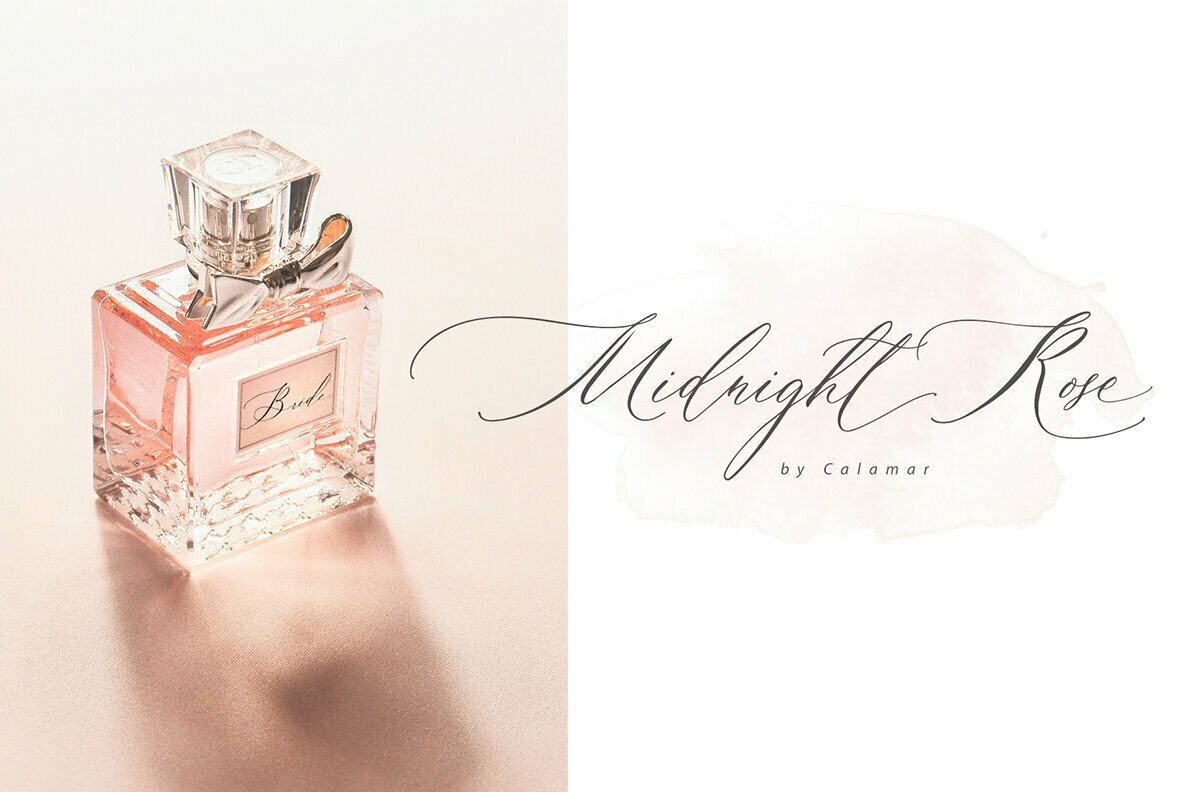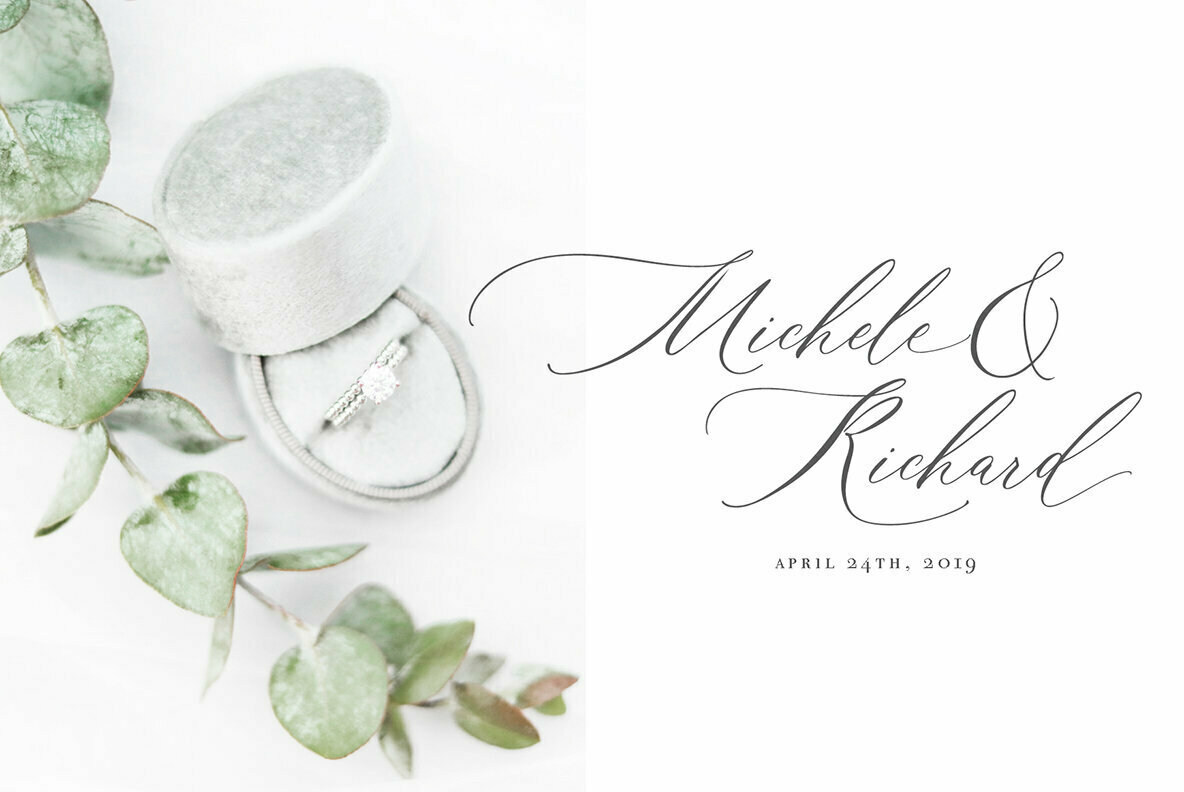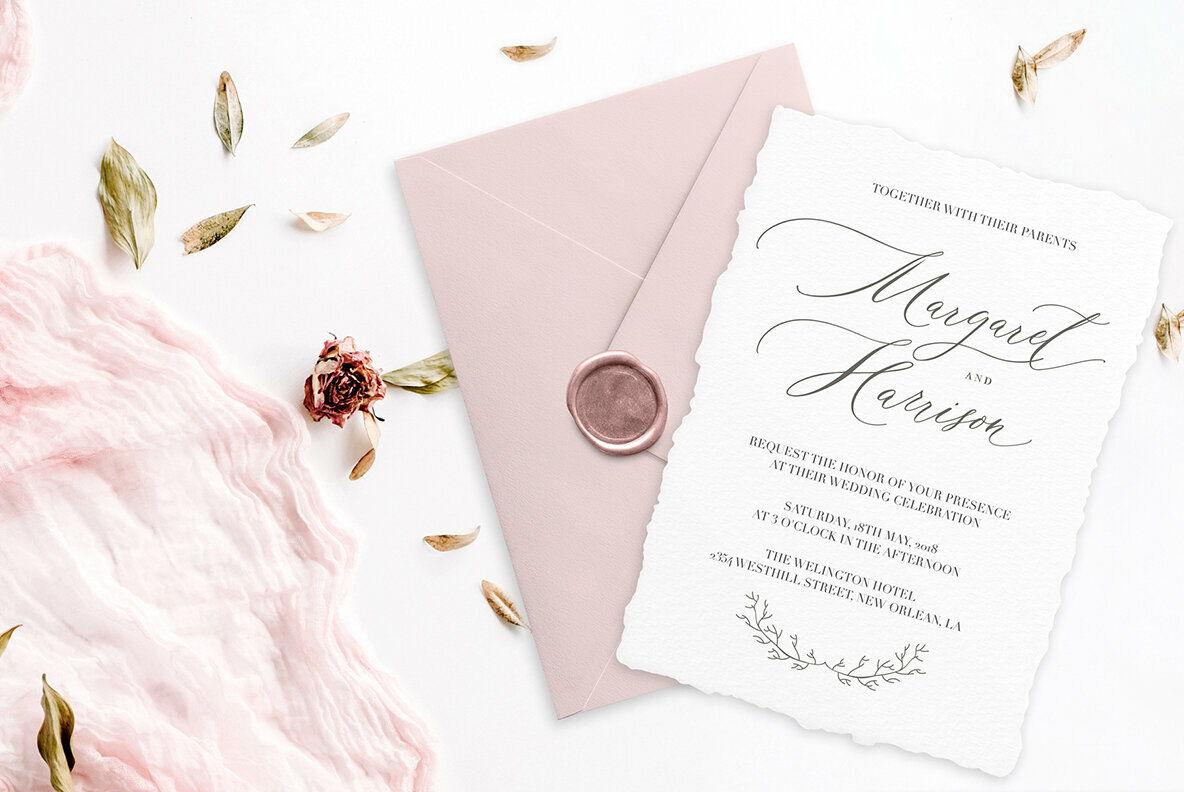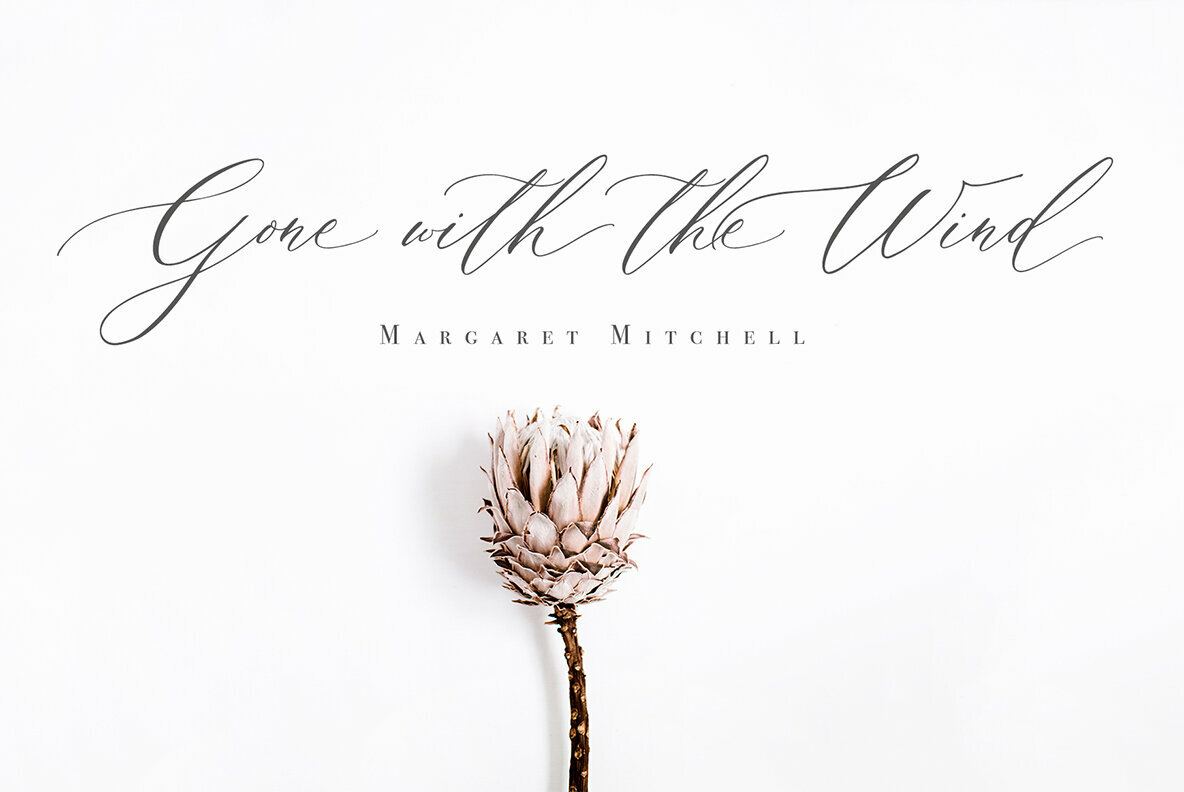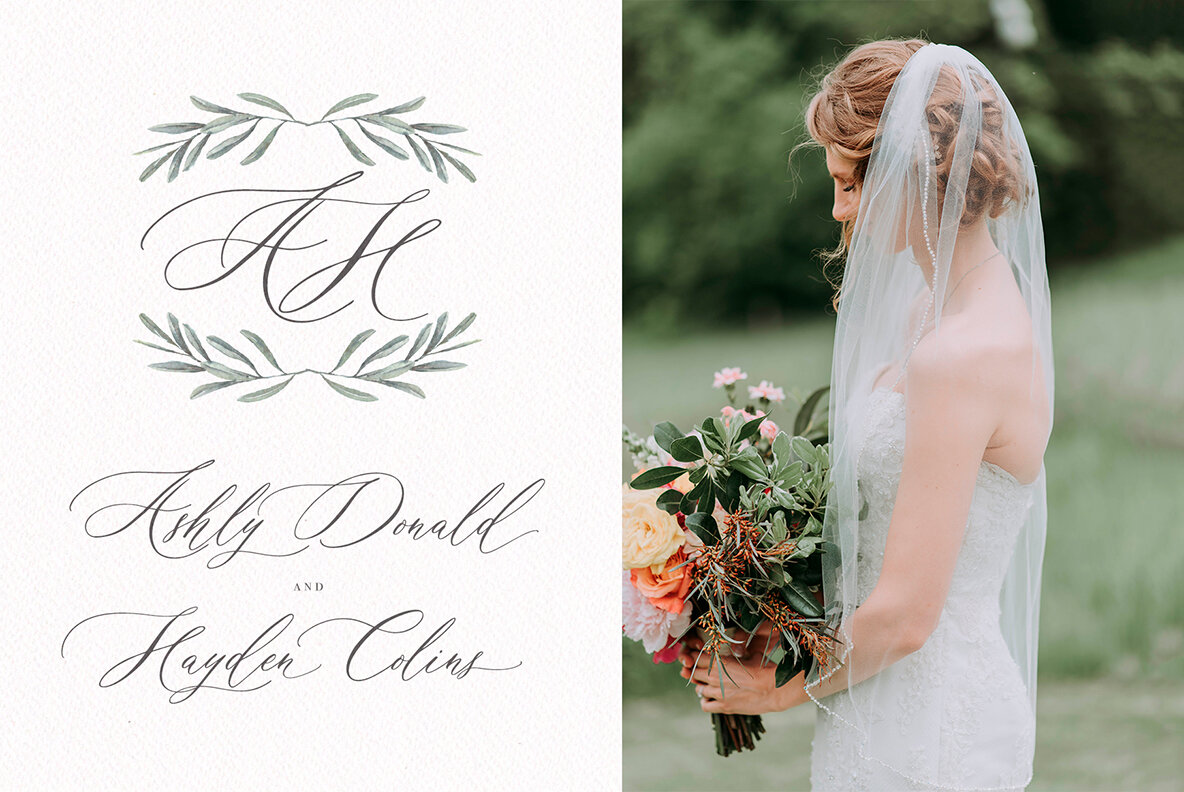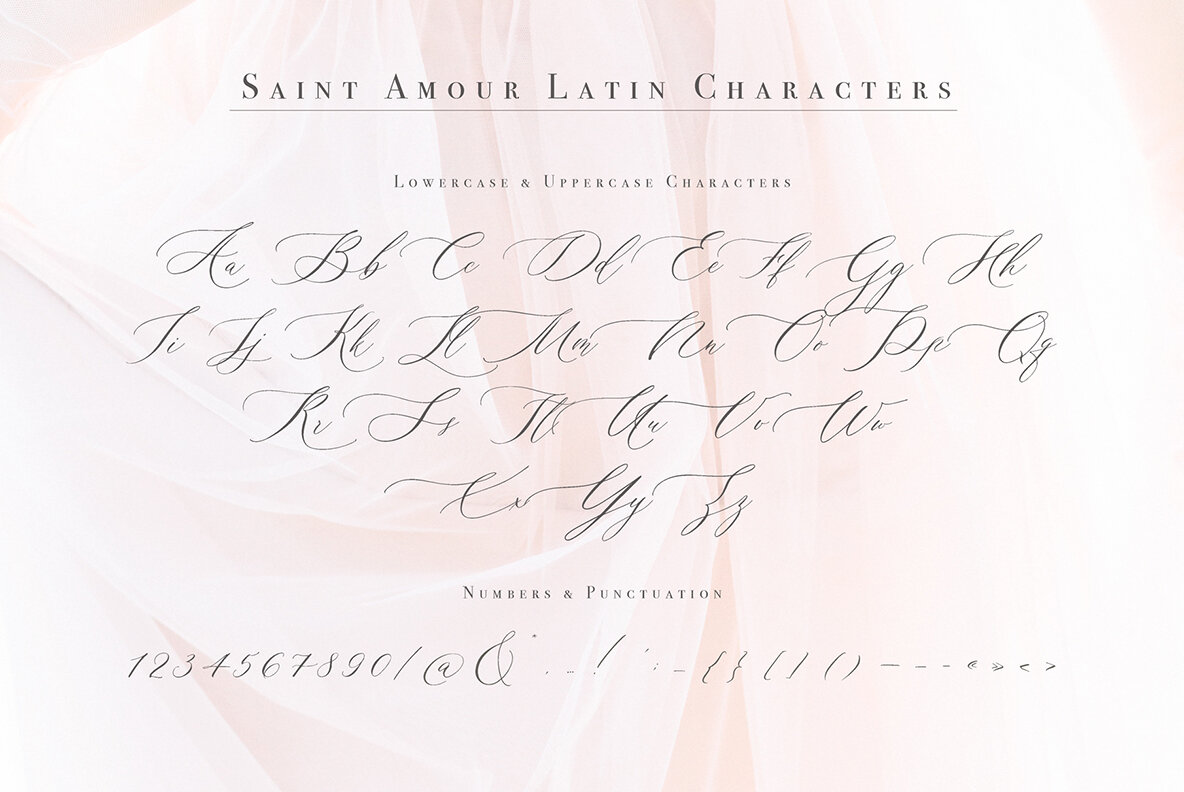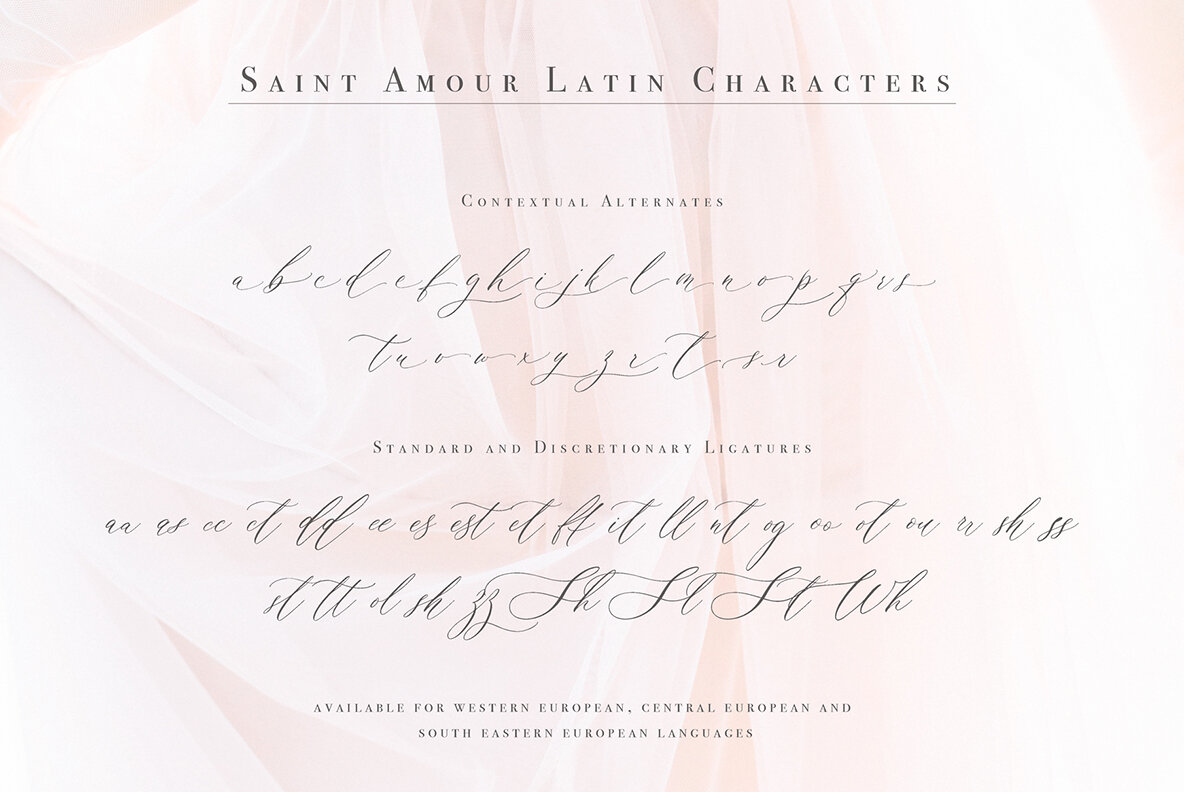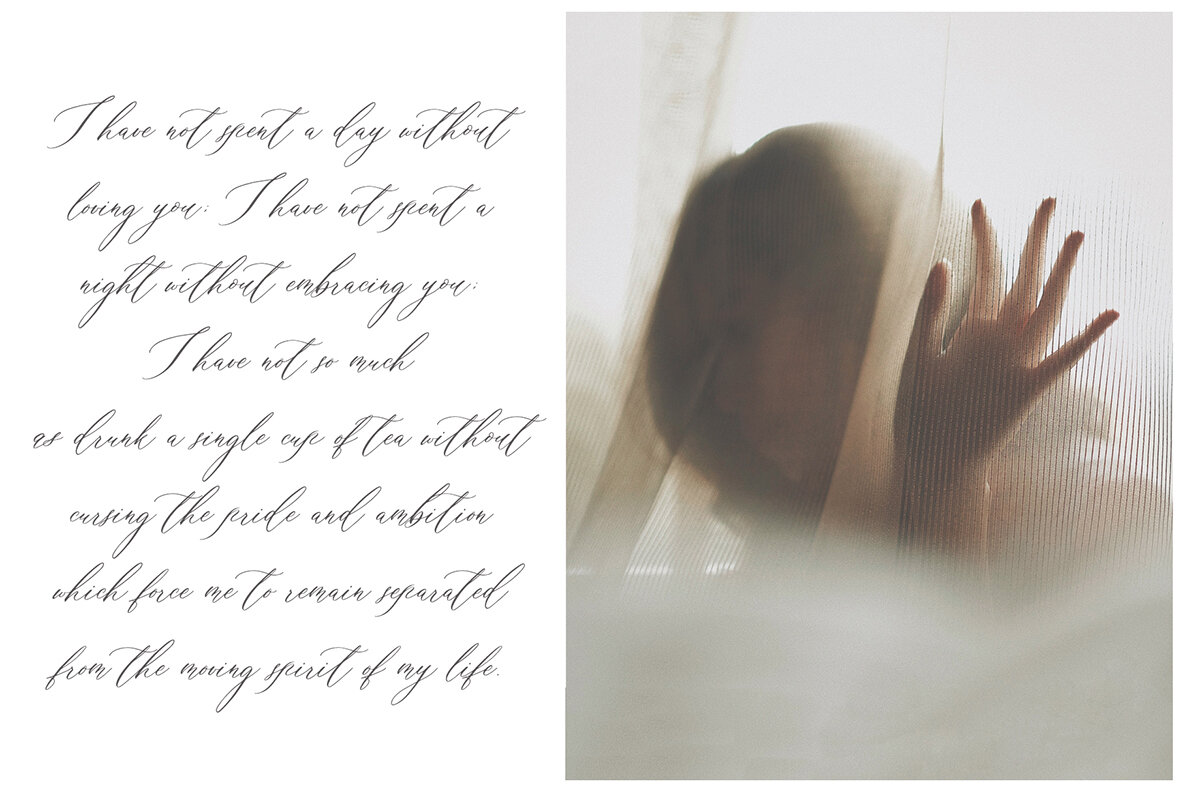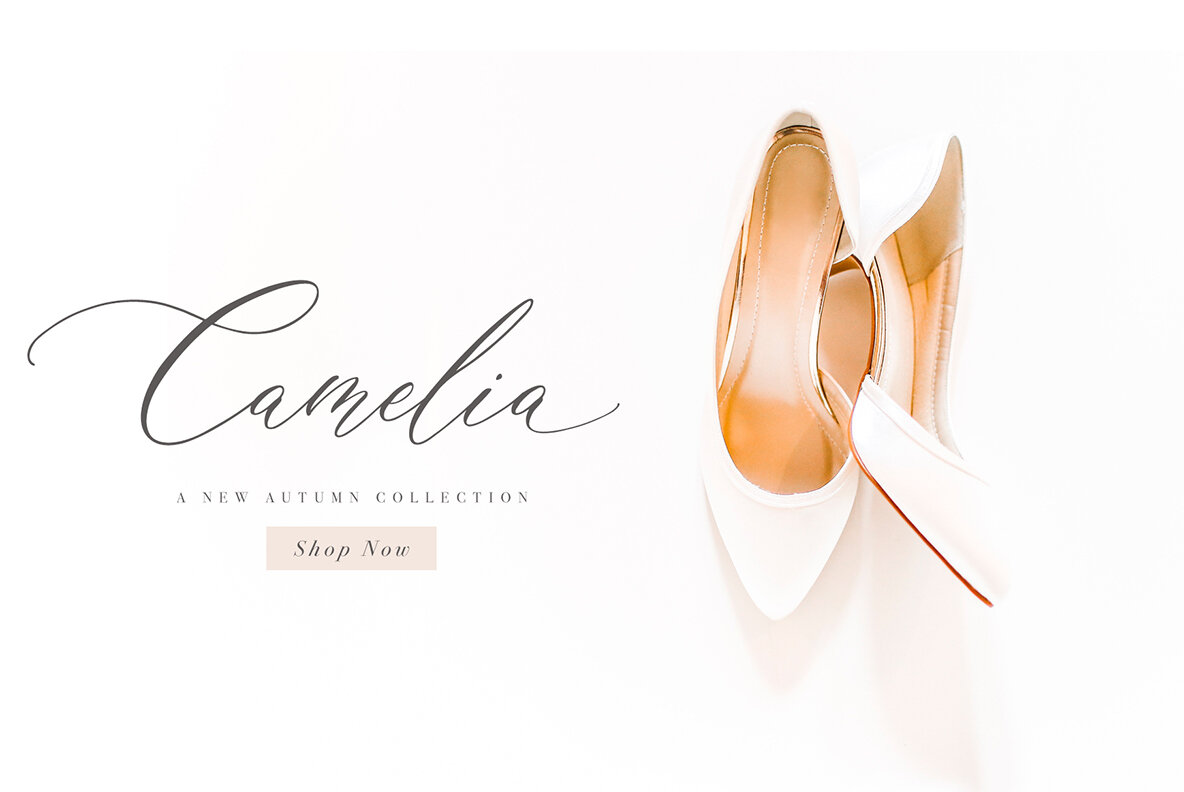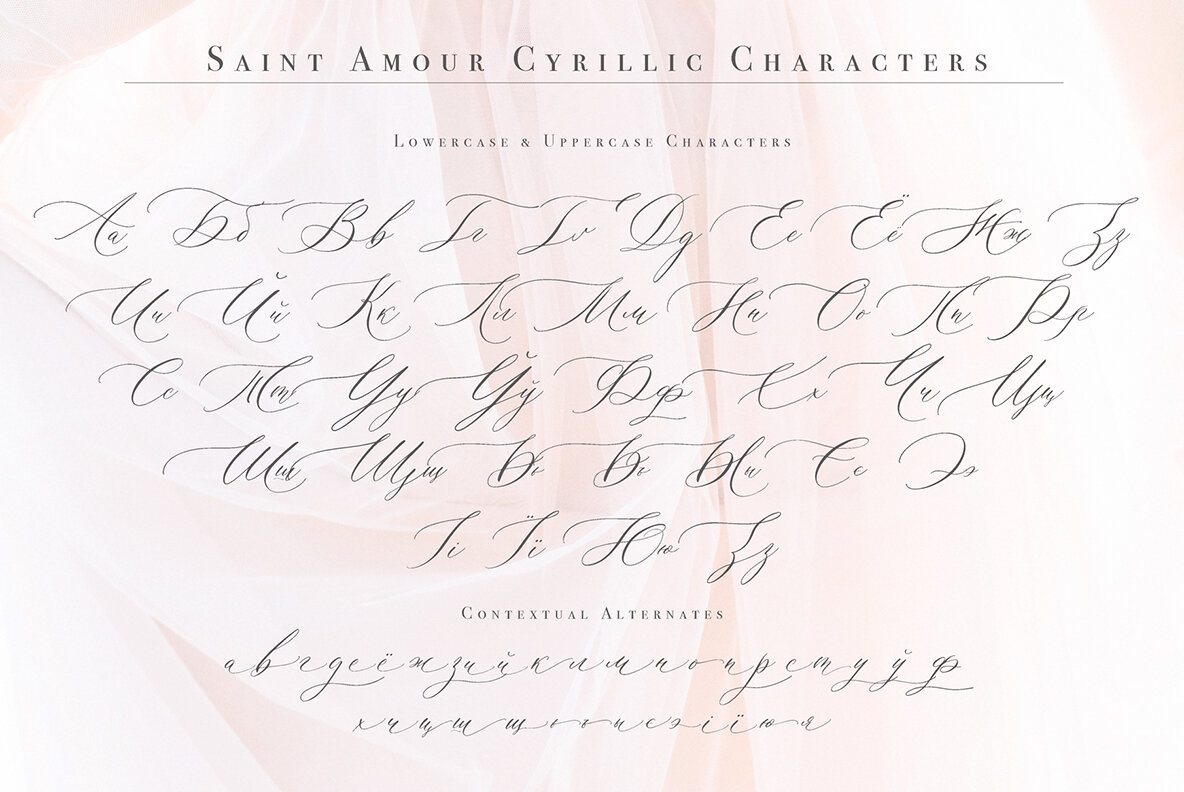
Saint Amour Script Font
Saint Amour Regular
Saint Amour Script is an elegant calligraphy font that will look awesome on wedding and event stationery, logos and branding materials, cards and so on.
Saint Amour Script includes Uppercase and Lowercase Cyrillic and Latin Basic Characters, Numbers and Punctuation. Also the font contains ligatures and stylistic alternates to perfectly re-create natural calligraphy.
Saint Amour Script supports Latin & Cyrillic alphabets giving a huge range of language support, including: albanian, belarusian, bosnian, bulgarian, croatian, czech, danish, dutch, english, estonian, filipino, finnish, french, german, hungarian, icelandic, indonesian, irish, italian, latvian, lithuanian, luxembourgish, polish, portuguese, romanian, russian, slovak, slovenian, spanish, swedish, swiss german, turkish, turkmen, ukrainian, welsh and much more.